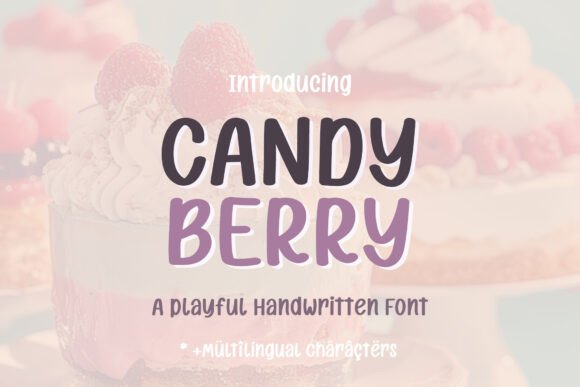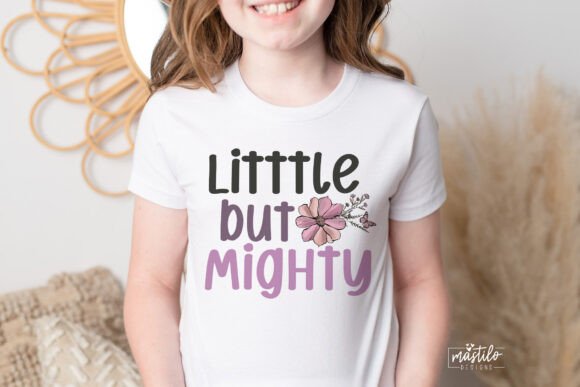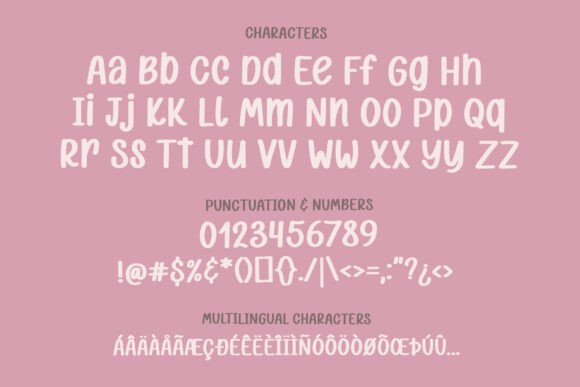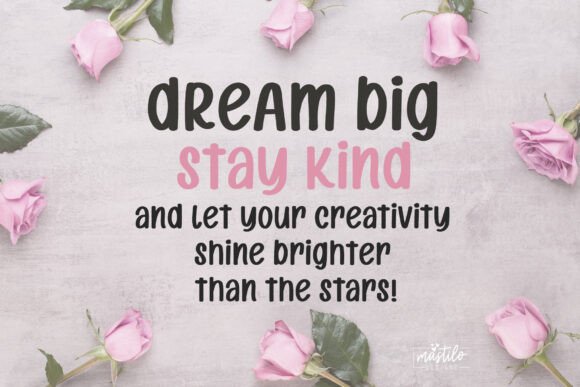
Candy Berry Font: A Cute Handwritten Font for Cricut & DIY!
About the Candy Berry Font
Let us introduce you to Candy Berry Font, where timeless design meets modern craftsmanship. Introducing Candy Berry, a sweet and friendly handwritten font. Its natural and unique style makes it incredibly fitting to a large pool of designs. The only limit is your imagination!
Candy Berry’s friendly, informal style works exceptionally well in projects requiring a hand-crafted, approachable feel. Ideal applications include short headlines, branding for artisan products, social media graphics, and packaging for sweet treats or children’s products. Avoid using it for large blocks of body text or UI elements where legibility is paramount; its handwritten nature can hinder readability in extended passages.
Pair Candy Berry with a clean sans-serif like Open Sans for a balanced contrast, or a playful geometric sans-serif such as Bebas Neue for a more energetic feel. For a more sophisticated look, consider pairing it with a delicate serif typeface such as Lora. This combination offers visual interest while retaining the overall friendly tone.
The font’s core personality is undeniably cheerful and approachable, conveying a sense of warmth and playfulness. This makes it particularly suitable for brands focused on happiness, creativity, or childhood themes.
Candy Berry Font Usage Examples
Candy Berry Font Example